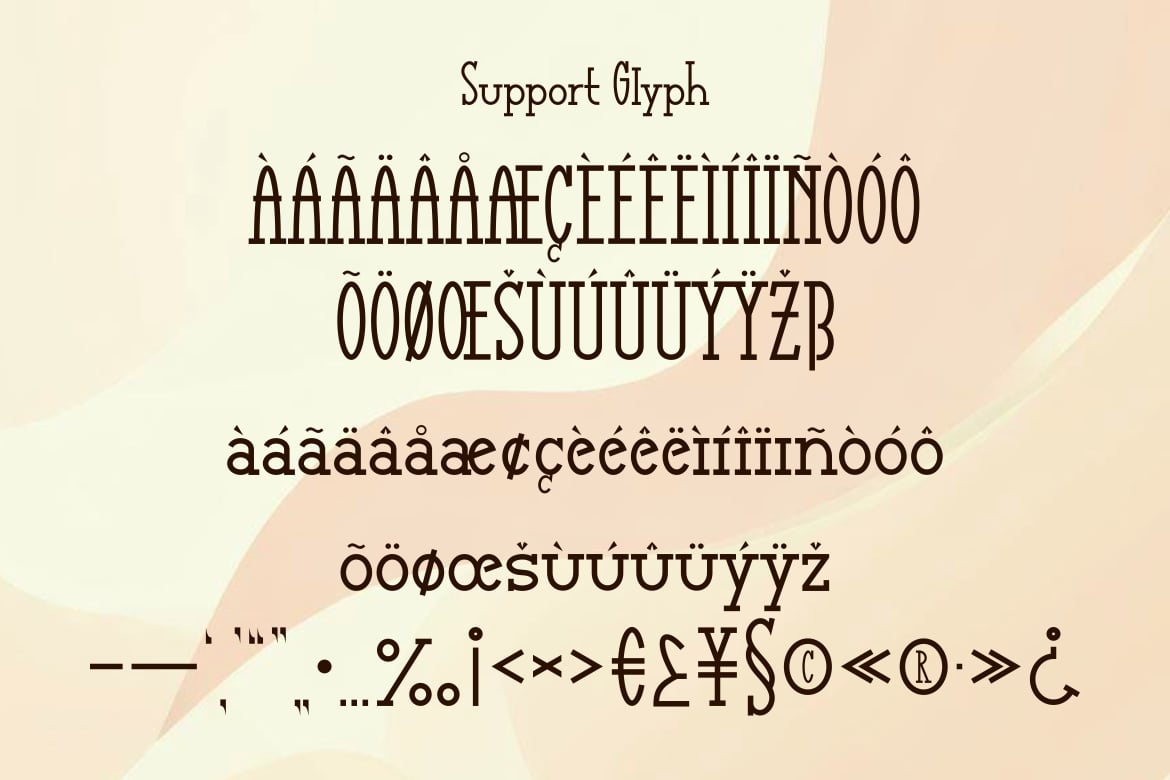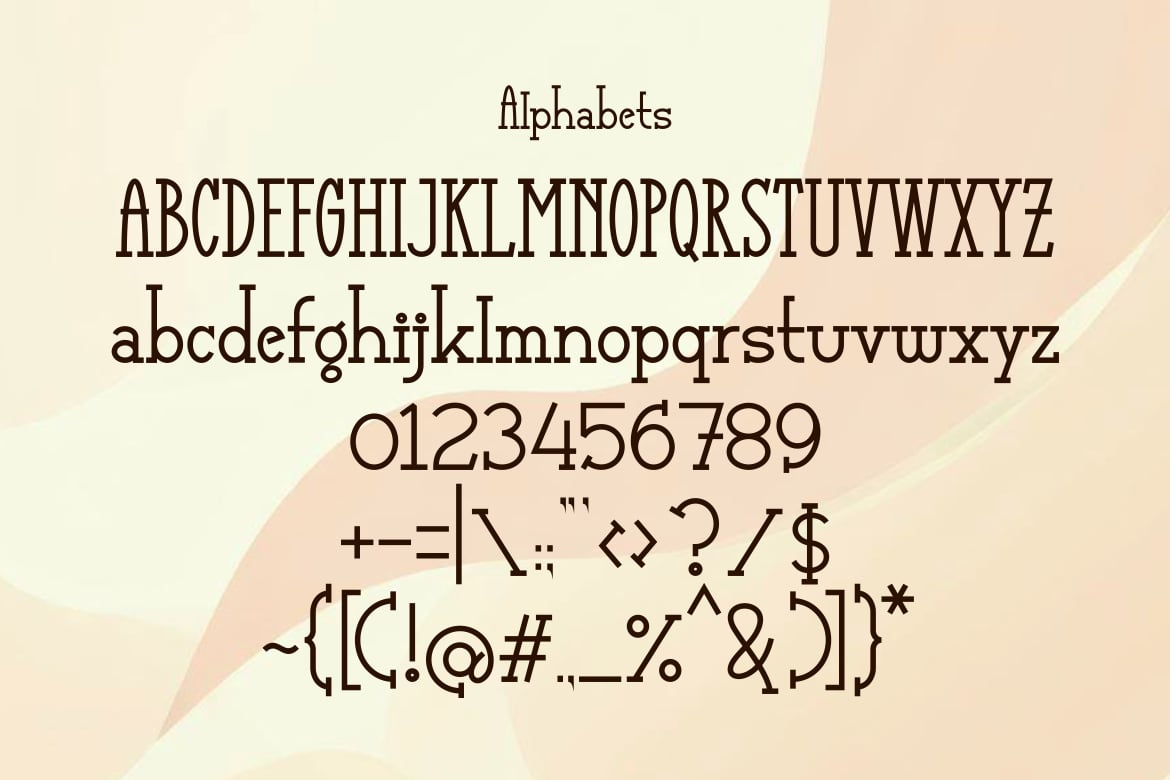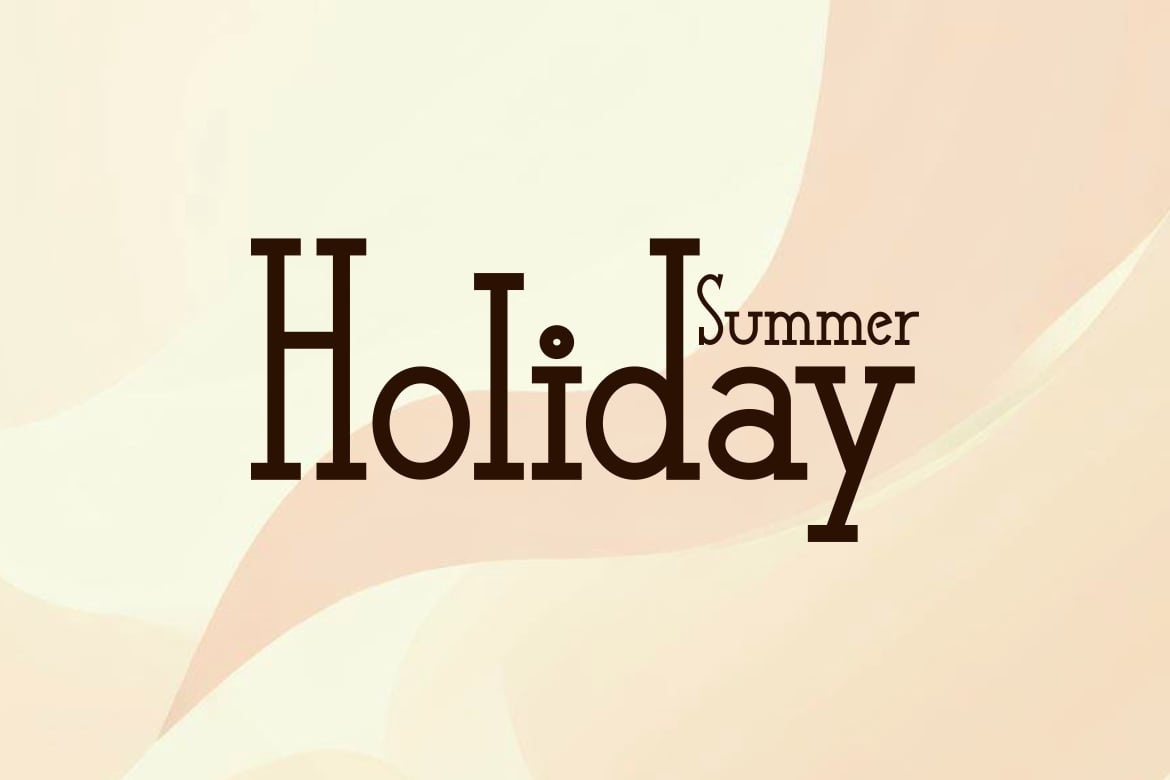
Lord de Ayodilla Font
Spring or holiday fonts that go well with fun conditions, have a unique enough wording from the dazzling serif-script family to complement your holiday. Social media posts and greeting cards are the right working choices for this font. Equipped with foreign language glyphs to add a very wide syllable.